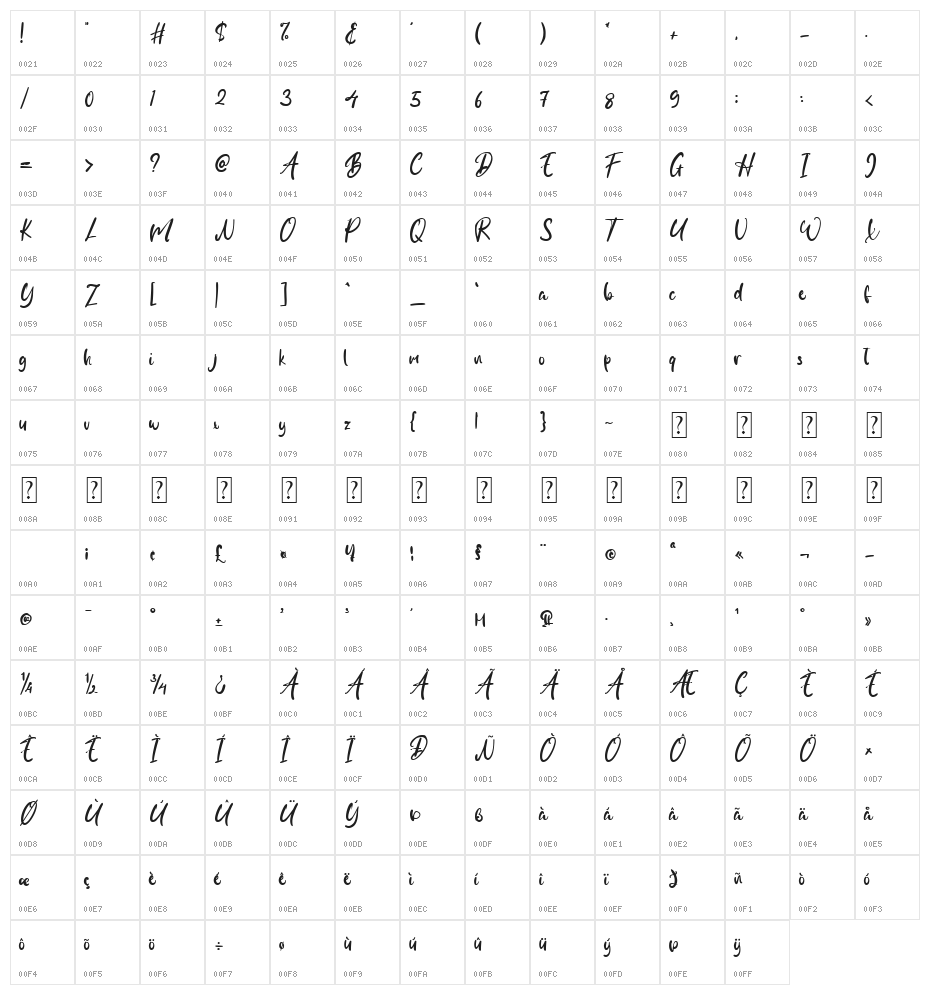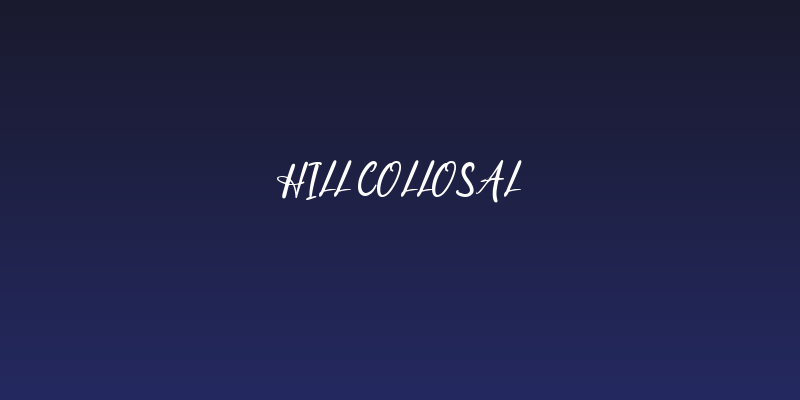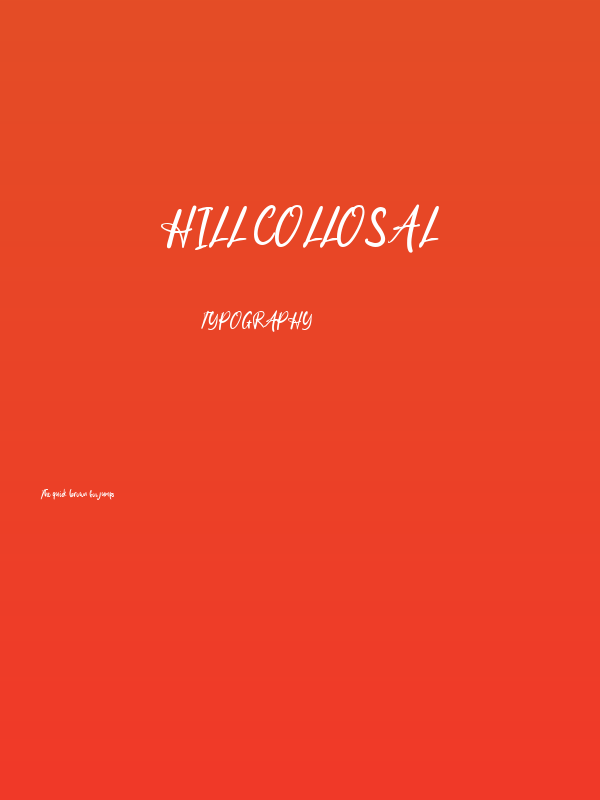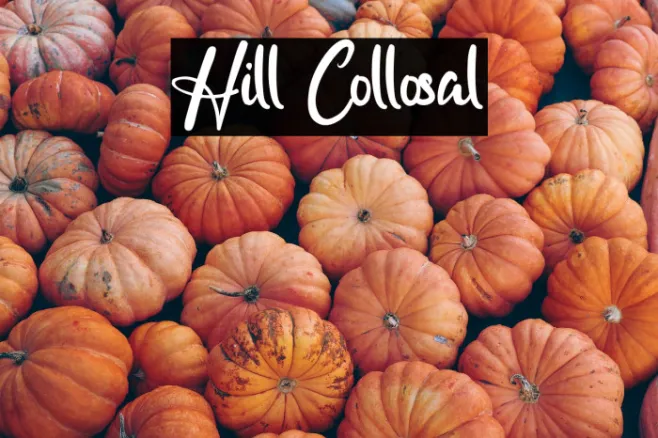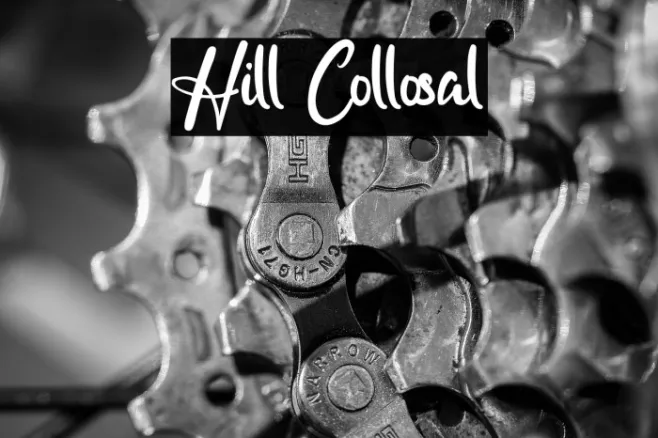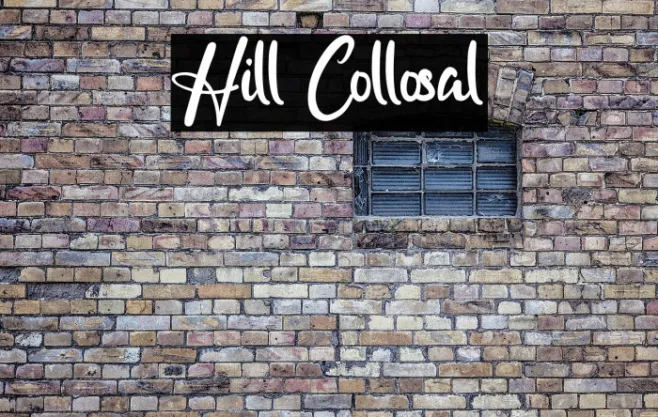
Hill Collosal Font
Hill Collosal Description
This font features a dynamic and flowing script style, characterized by its elegant and fluid strokes. The uppercase letters exhibit a sense of grandeur with sweeping curves and a slightly slanted orientation, while the lowercase letters maintain a cohesive and harmonious flow. The numerals are designed with a similar flair, ensuring consistency throughout. Special characters are thoughtfully integrated, complementing the overall aesthetic. The font's design exudes a sense of sophistication and creativity, making it ideal for projects that require a personal and artistic touch.
| Overall Style | Elegant, Artistic |
| Use Case | Logos, Invitations, Artistic Projects |
| Proposed Projects | Ideal for wedding invitations, greeting cards, branding, and artistic projects that require a personal touch. |